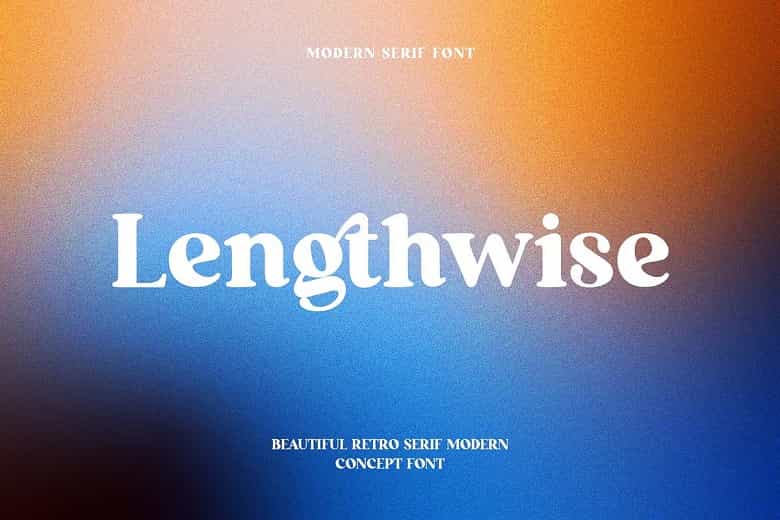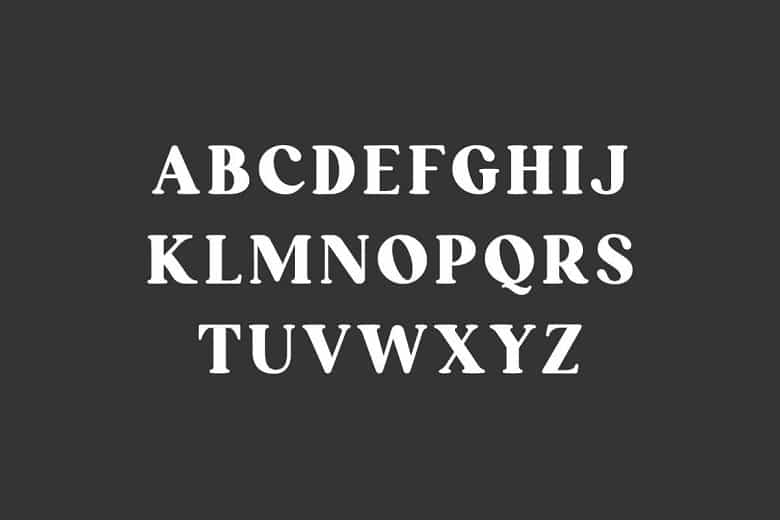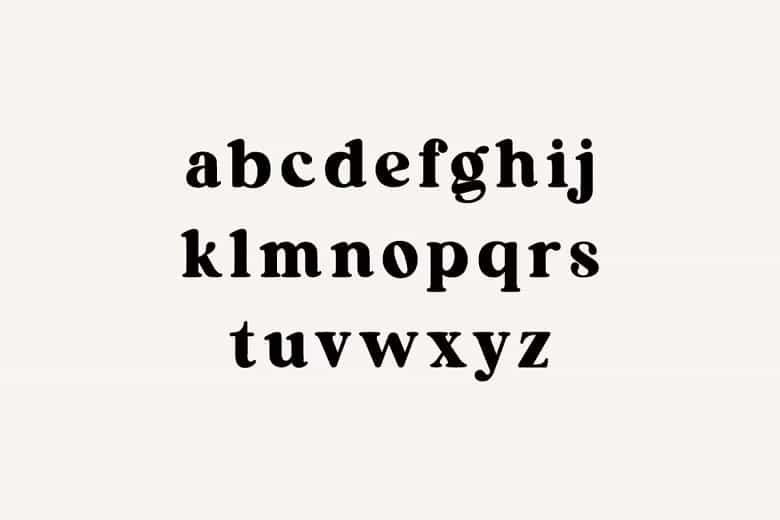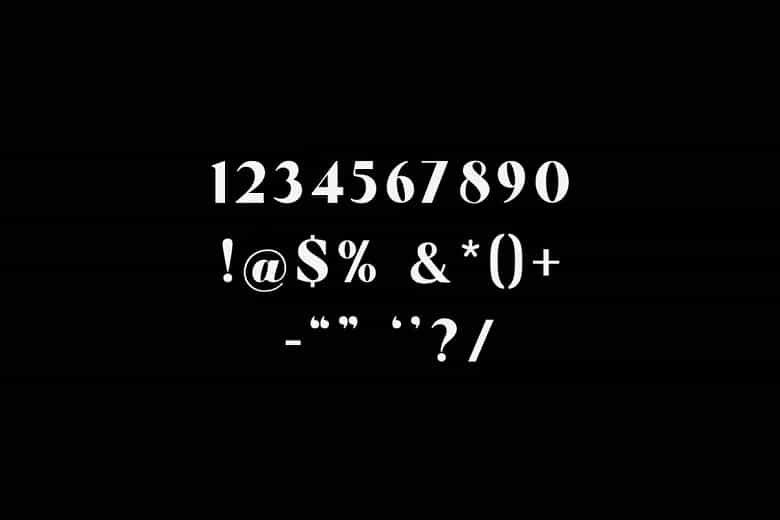
Lengthwise is a beautiful retro serif font looks classy, elegant and stylish. This font is a perfect match for many kinds of projects like signature, stationery, logo, wedding, quotes or numbers, magazines or books, headers for the websites, branding and much more.